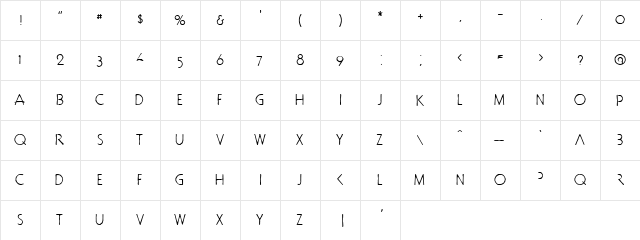
doctorBob Regular
Design Context for doctorBob Typeface
doctorBob offers clean, dependable letterforms without strong stylistic allegiance, making it a practical choice for designers who need flexibility.